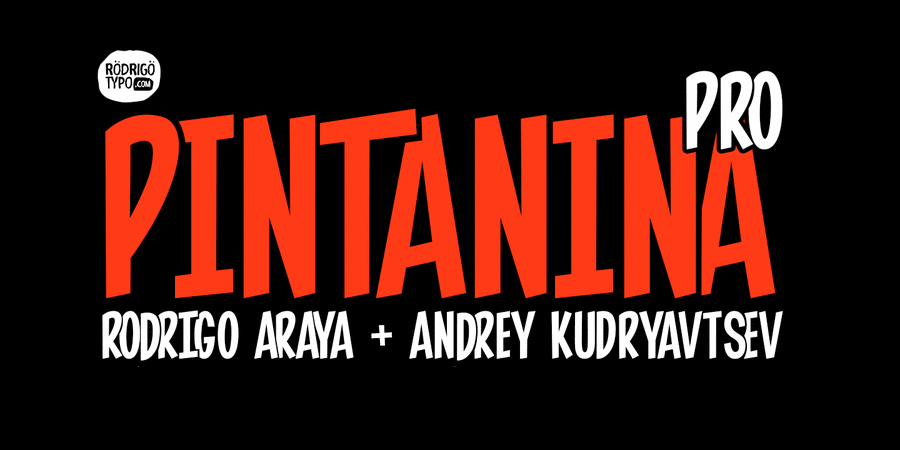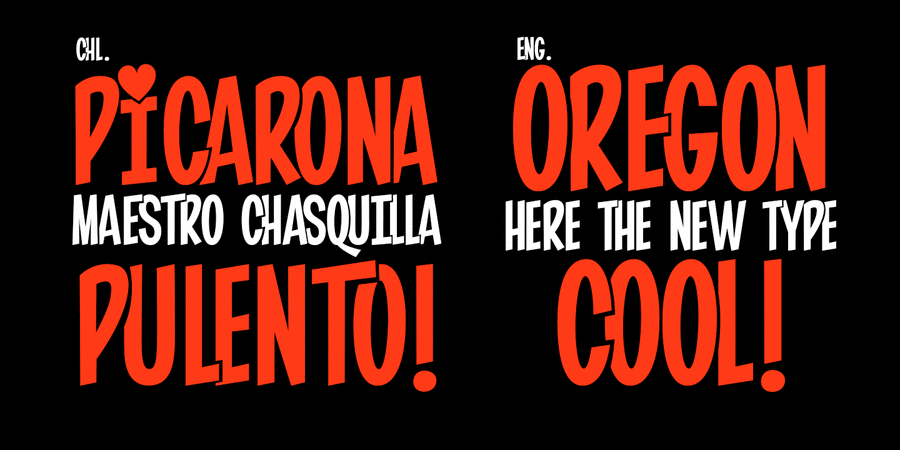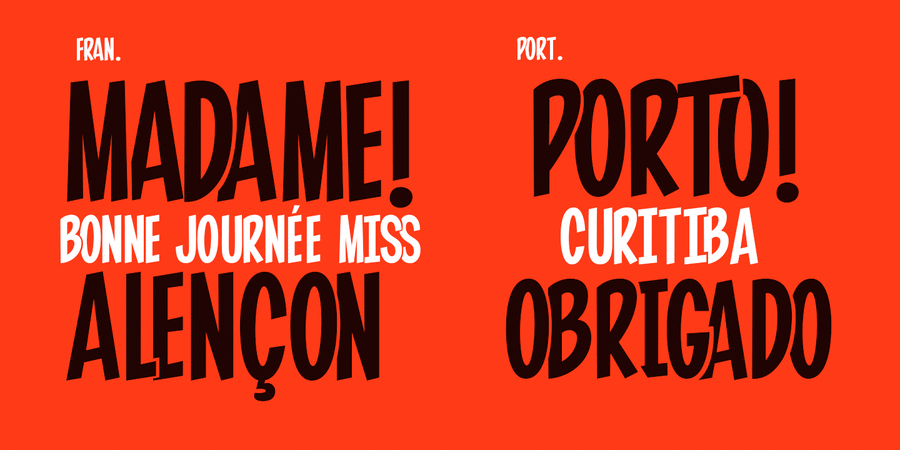
Pintanina was developed in 2013 with many alternatives of letters as ligatures. The typeface based on the Comics of Condorito in the headlines, a typography very condensed. In 2015 Pintanina was redesigned with a much more finished design and a better Cyrillic.
The typeface was designed by Rodrigo Araya Salas with the participation of Andrei Kudryavtsev in 2015.
expressive, funny, tall, ironic, healthy, peppy, distinctive, idle, walking, spoiled, smooth, interesting, student, party, cool, dynamic, alive, restless, informal, youth, splashy, cheerful, provocative, glad, playful, mischievous, agile, original, fresh, notable, children, cartoonish, witty, happy, festive, creative, voiced, clean, solid, positive, freewheeling, motivating, daring, loud, sharp, artistic, bright, active, formidable, close-fitting, self-assured, strong, stable, revolutionary, important, workman, ambitious, proud, cutting, street, yelling, simple, elementary, plump, fat
fast food, shop, graffiti, adventures, entertainment, party, retail, advertising, store, game, children's book, camp, humor, animation, food, snack, recreation, circus, Cartoon, show, cinema, celebration, attraction, pizza, meeting, revolution, video, strike, Protest, Superhero, disco, aquadiskotheque, graphics, illustration, morning, flag, menu, toy Typeface exhibits stylistic traits: